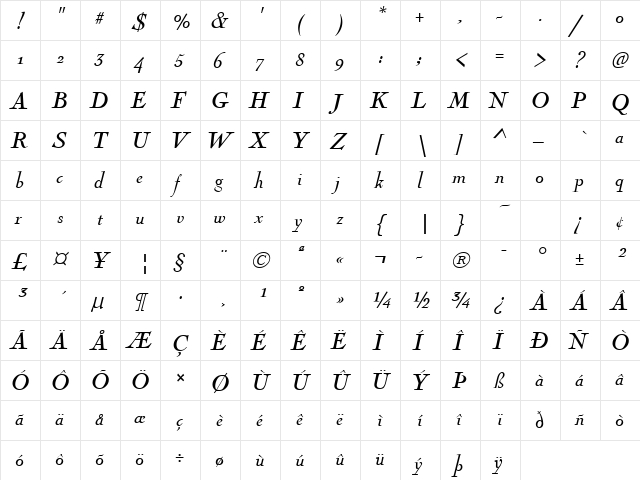
NicolasCochin Italic
NicolasCochin offers clean, dependable letterforms without strong stylistic allegiance, making it a practical choice for designers who need flexibility. The slanted form adds forward momentum and visual energy.
Pro Tip: Try NicolasCochin for annotation and caption copy alongside an upright companion — the contrast in angle creates a dynamic but ordered typographic system.